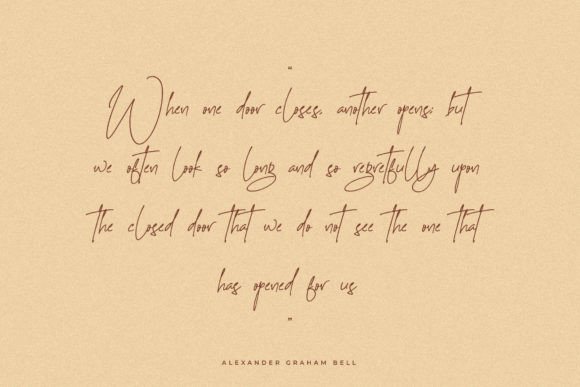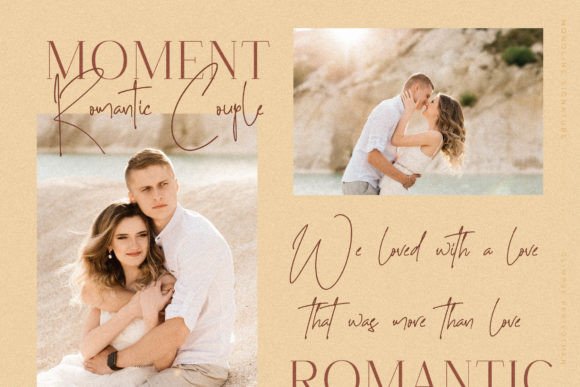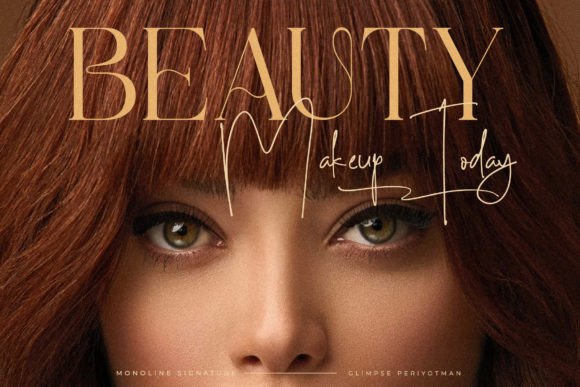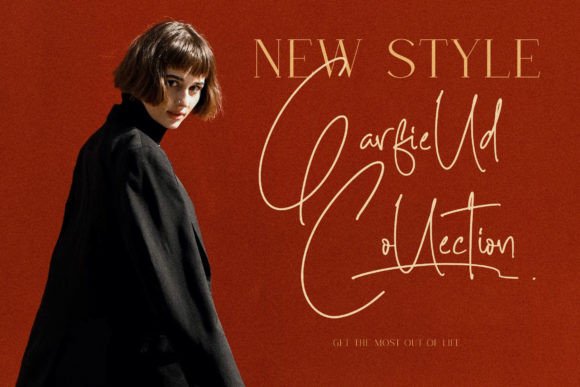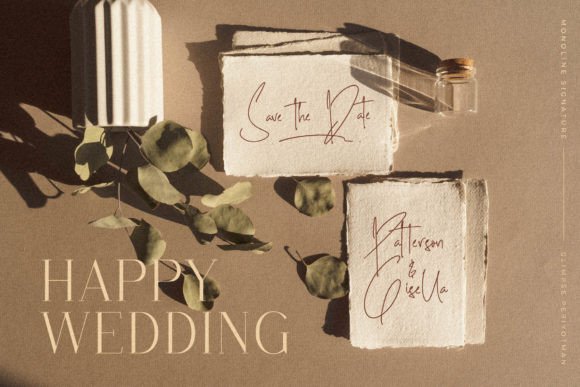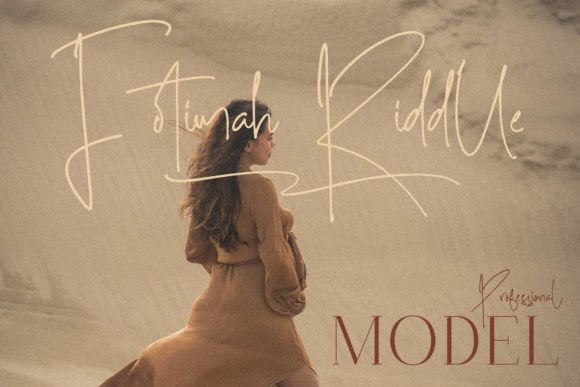
Glimpse Periyotman Font: Adding a Touch of Romance to Your Designs
In the world of typography, fonts play a crucial role in conveying the tone and personality of a design. For designers and crafters looking to add a romantic touch to their projects, Glimpse Periyotman font is an excellent choice. This enchanting handwritten font has gained popularity for its versatility and aesthetic appeal, making it suitable for a wide range of applications.
What is Glimpse Periyotman Font?
Glimpse Periyotman is a beautiful script font that boasts a unique and elegant style. Its handwritten nature gives it a personal and intimate feel, perfect for designs that require a touch of warmth and romance. The font’s versatility allows it to be used in various contexts, from greeting cards and invitations to headlines and branding materials.
Key Features of Glimpse Periyotman Font
- Handwritten Style: Glimpse Periyotman font features a genuine handwritten look, making it perfect for designs that require a personal touch.
- Versatility: This font can be used in a variety of applications, including greeting cards, headlines, branding materials, and more.
- Elegant and Romantic: The font’s elegant and romantic style makes it ideal for designs that require a touch of sophistication and warmth.
- Easy to Read: Despite its ornate nature, Glimpse Periyotman font is easy to read, making it suitable for both digital and print designs.
Uses of Glimpse Periyotman Font
Glimpse Periyotman font can be used in a variety of design projects, including:
- Greeting Cards: Add a personal touch to your greeting cards with this beautiful script font.
- Invitations: Make your invitations stand out with the elegant and romantic style of Glimpse Periyotman font.
- Headlines: Use this font to create eye-catching headlines for your blog posts, articles, or social media posts.
- Branding Materials: Incorporate Glimpse Periyotman font into your branding materials, such as logos, business cards, and letterheads, to give your brand a unique and sophisticated look.
- Digital Designs: Use this font in your digital designs, such as website headers, email newsletters, and social media graphics, to add a touch of elegance and romance.
Tips for Using Glimpse Periyotman Font
To get the most out of Glimpse Periyotman font, follow these tips:
- Pair it with a Simple Font: Pair Glimpse Periyotman font with a simple font to create a beautiful contrast and make your design stand out.
- Use it for Headlines and Titles: Use Glimpse Periyotman font for headlines and titles to add a touch of elegance and romance to your design.
- Experiment with Colors: Experiment with different colors to find the perfect combination that complements the font and enhances the overall design.
Glimpse Periyotman font is a beautiful and versatile script font that can add a touch of romance and elegance to your designs. Its handwritten nature, elegant style, and ease of readability make it perfect for a wide range of applications. Whether you’re a designer or crafter, this font is sure to become a valuable addition to your typography collection. So, why not give Glimpse Periyotman font a try and see how it can transform your designs?